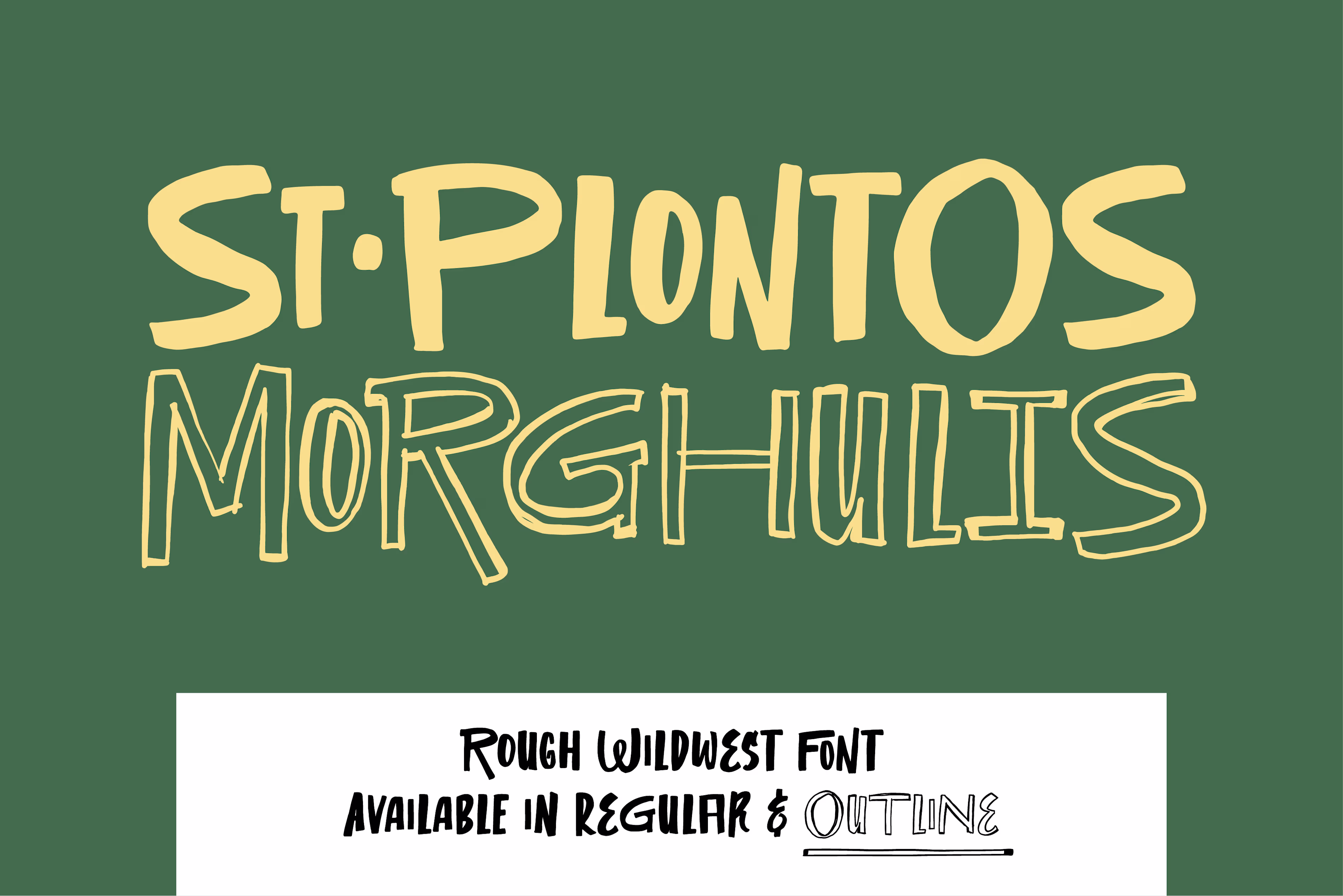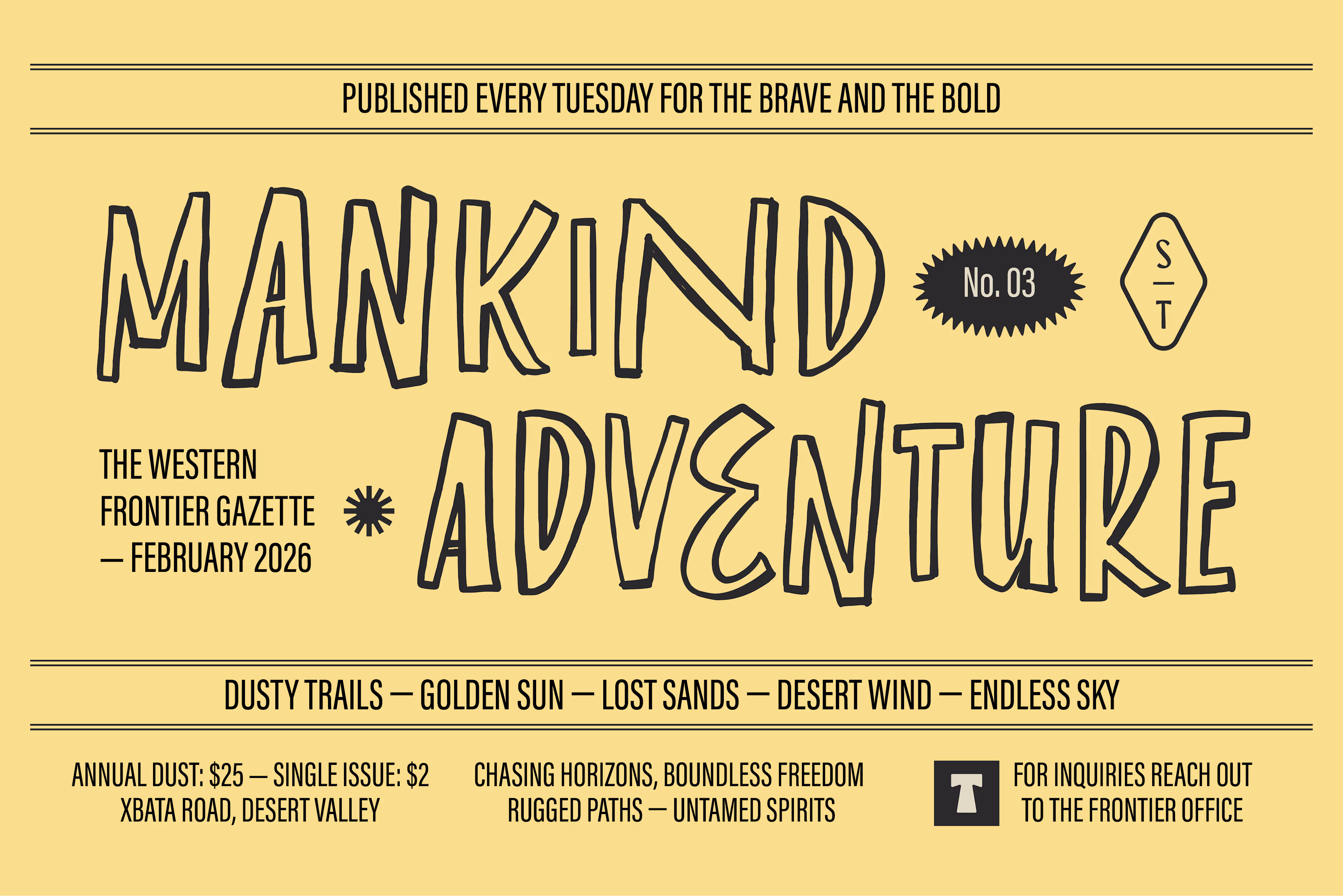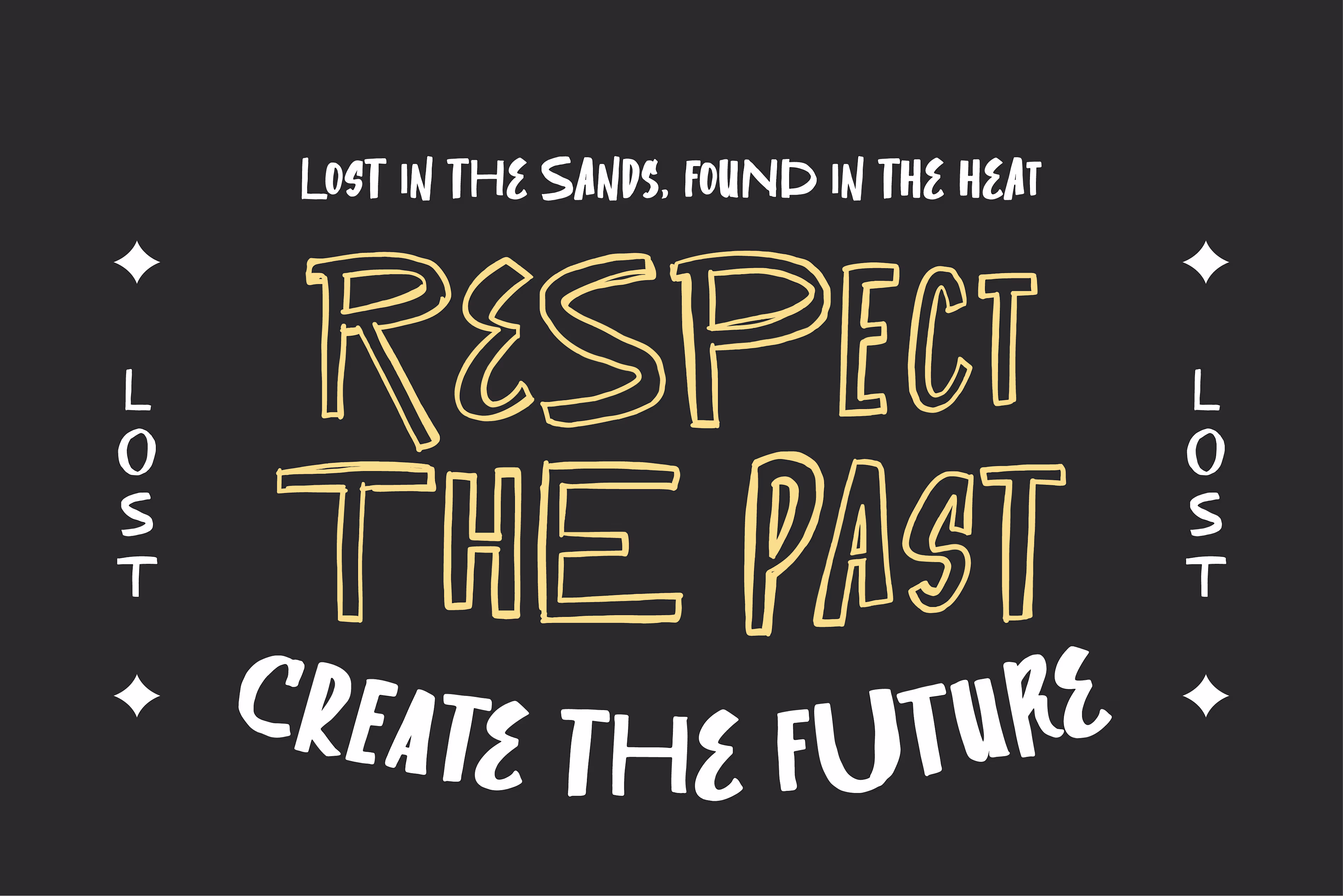
Bring the spirit of the frontier to your digital canvas with Westmark. This isn't just another western font; it’s a tribute to the "human-made" aesthetic, blending rugged Wildwest vibes with a modern, quirky handwritten touch.
Designed under Studio Type-it-Easy, Westmark captures that authentic, raw energy perfect for brands that aren't afraid to show some character.
Westmark Regular: Bold, solid, and full of hand-drawn personality.
Westmark Outline: A hollowed-out variant that adds a light, modern layer to your layouts.
Rough Texture: Intentionally imperfect edges for that genuine "stamp" or "ink-on-paper" feel.
Adventure Branding: Outdoor gear, coffee roasters, or craft breweries.
Editorial Design: Eye-catching headlines and bold pull-quotes.
Merchandise: Apparel, tote bags, and vintage-style posters.
Social Media: Content that needs a personal, non-corporate touch.